Signature Fonts for Certificates: Selection Criteria + a Trust & Verification Checklist
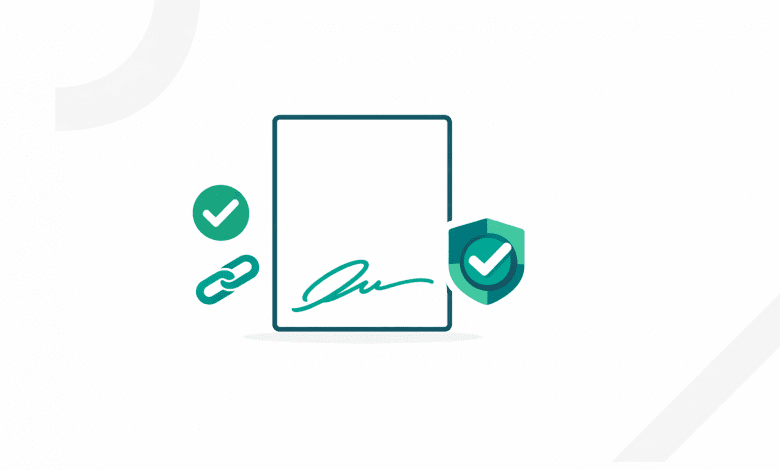
Choosing signature fonts for certificates seems like a design detail until it affects readability, brand perception, and how credible the credential feels when shared. Many teams want a polished signature line without creating a “too-easy-to-fake” document aesthetic.
This guide gives you selection criteria for signature fonts (US-focused readability and brand standards), plus a trust checklist for what typography can’t solve: verification, portability, and fraud resistance.
Key takeaways
- Signature fonts signal authority and formality, but over-styling can reduce readability and raise authenticity concerns.
- Choose for legibility at typical viewing sizes, consistent branding, and accessibility—then lock the process with licensing and distribution controls.
- Design can’t prevent reuse or editing of a static certificate; verification needs a credential record and a way to validate it.
- Digital credentials make certificates shareable while preserving trust through verification workflows.
What signature fonts communicate (and the risks of over-styling)
Signature fonts are script-style typefaces used to mimic an ink signature. On certificates, they typically communicate authority, human approval, and ceremony—especially when paired with a title line (e.g., Program Director) and a date.
The risk is that signatures can also communicate the opposite if they look artificial: overly ornate scripts, extreme slants, or “handwriting” that reads like a novelty. If the recipient can’t read the signer’s name, it reduces the certificate’s practical value and can create doubt.
- Common failure mode: choosing a highly decorative signature font that looks impressive at 48pt but becomes illegible when exported, printed, or viewed on mobile.
- Common failure mode: inconsistent application across teams (different fonts, weights, or spacing), making the program feel fragmented.
- Common failure mode: the signature line looks copy-pasted across certificates, which can signal “template” rather than “approval.”
How to choose signature fonts for certificates (US brand and readability standards)
A good signature font choice is less about personality and more about repeatable output: it must render consistently across export formats, devices, and internal tools.
Use these criteria as your baseline:
- Legibility at real sizes: test at the size you’ll ship (PDF, email preview, and mobile). Avoid scripts with heavy flourishes that close counters (enclosed spaces) or create ambiguous letterforms.
- Stroke contrast: ultra-thin strokes can disappear on lower-quality printers or compression; extremely thick scripts can blob at small sizes.
- Name clarity: the signer’s printed name should appear beneath the signature line in a readable serif or sans serif. This is a pragmatic standard even when using a stylized signature font.
- Brand alignment: match the certificate’s typography system. If your brand uses modern sans fonts, a clean script often feels more coherent than a vintage calligraphy style.
- Consistency across signers: decide whether every signer uses the same signature font (recommended for governance) or whether each executive has a distinct script (harder to manage, harder to standardize).
- Accessibility considerations: decorative scripts are inherently harder to read. Treat the signature font as an accent and ensure the rest of the certificate carries the meaning clearly (recipient name, achievement, issuer, date, and credential identifier where applicable).
If you also publish an appreciation template (for thank-you certificates, volunteer recognition, attendance, or internal awards), apply the same rule: script fonts are accents, not the primary carrier of information.
Font licensing and distribution considerations for teams
In operational reality, font choice becomes a procurement and distribution problem. Before standardizing a signature font, confirm the license covers how your team actually works.
- Who installs the font: if designers install locally but admins generate certificates in another tool, the font may not render unless embedded or supported by that system.
- Embedding in PDFs: PDF export often embeds fonts, but licensing may restrict embedding or editing rights. Confirm terms with your legal/procurement team.
- Web and app use: if the signature font appears in a web-based credential portal, you may need a webfont license rather than a desktop-only license.